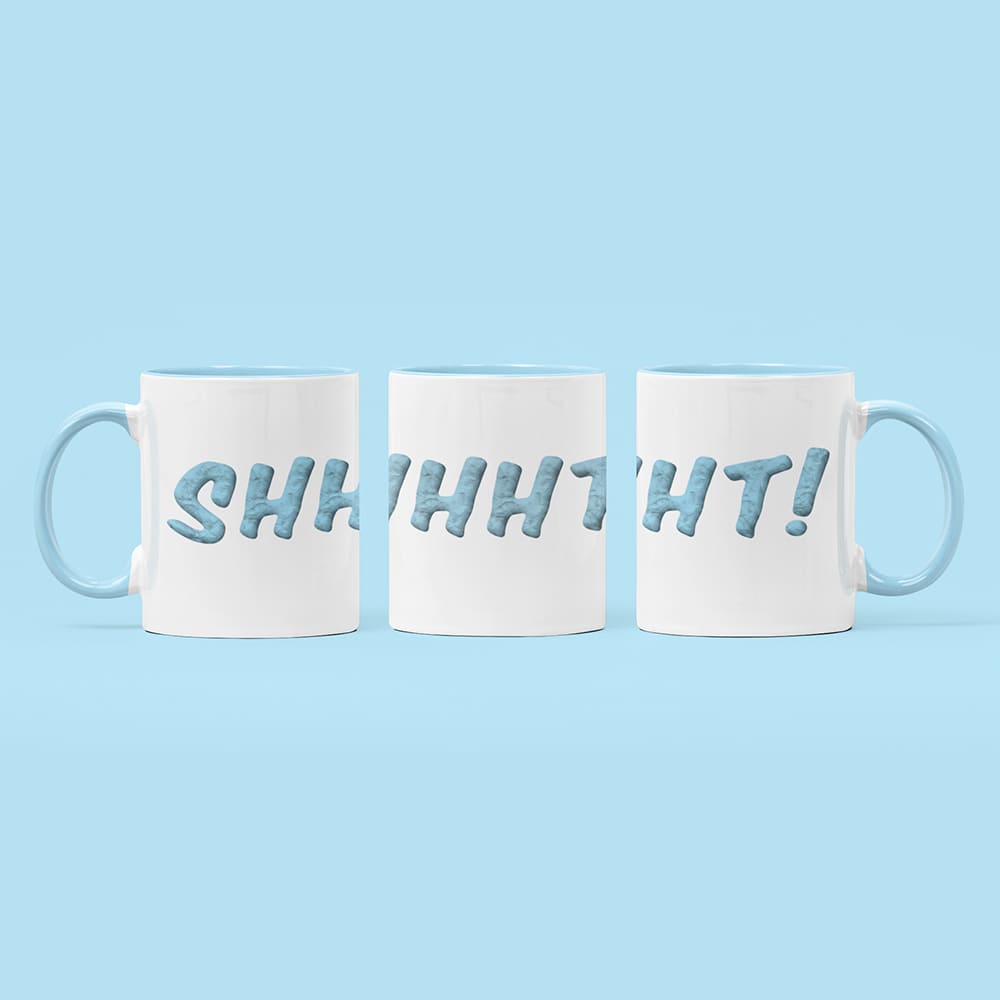
Bouncing Comic Plasticine Font
Colorful, Fun, Lively ποΈπ¨ποΈ
Like bouncing clay in motion β elastic, vibrant, and full of joy! The Bouncing Comic Plasticine Font brings this playful, dynamic energy to your designs, blending the world of comics with the handmade charm of sculpted plasticine. Perfect for anyone looking to add an extra dose of creativity to their projects!
Why Choose the Bouncing Comic Plasticine Font?
πΉ Soft & lively β Inspired by plasticine modeling and quirky cartoon fonts, this font pops right off the screen. Every letter looks hand-shaped, bringing movement and character to your design.
πΉ Perfect for creative projects β Whether for kids' products, toy branding, comic books, or social media β this font radiates pure fun!
πΉ Handmade look with comic vibes β Bouncy, uneven, and wonderfully playful β this font evokes the charm of stop-motion clay animation and is guaranteed to turn heads.
Bring Your Designs to Life with the Bouncing Comic Plasticine Font
Make your design colorful, playful, and one of a kind! This font is the perfect choice for those who love fun, creativity, and a handmade look. Plus, it's available in multiple colors β giving you even more variety and creative possibilities!
πΉ Stand out. Get creative. Go full comic-style.
πΉ Choose colorful. Choose playful. Choose the Bouncing Comic Plasticine Font.